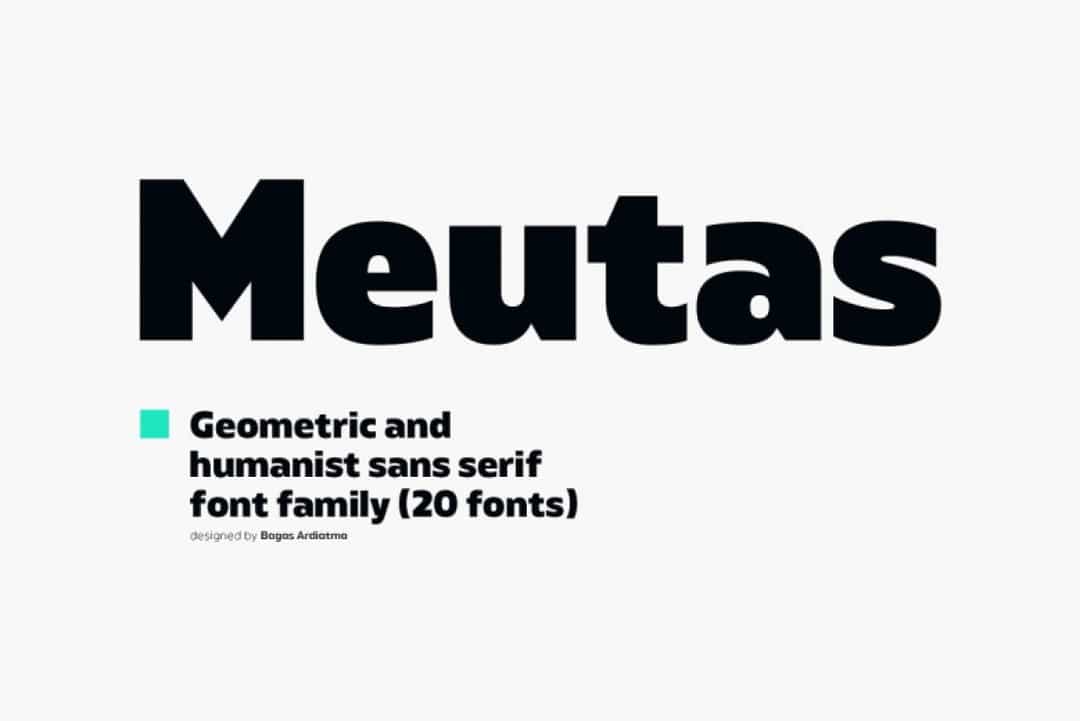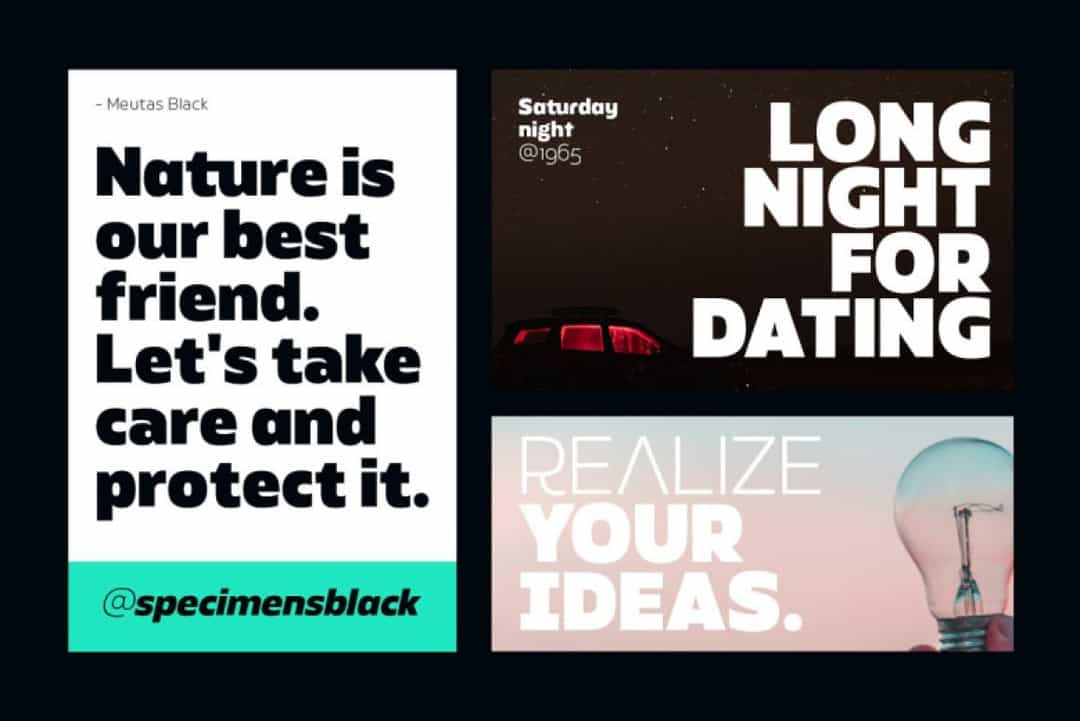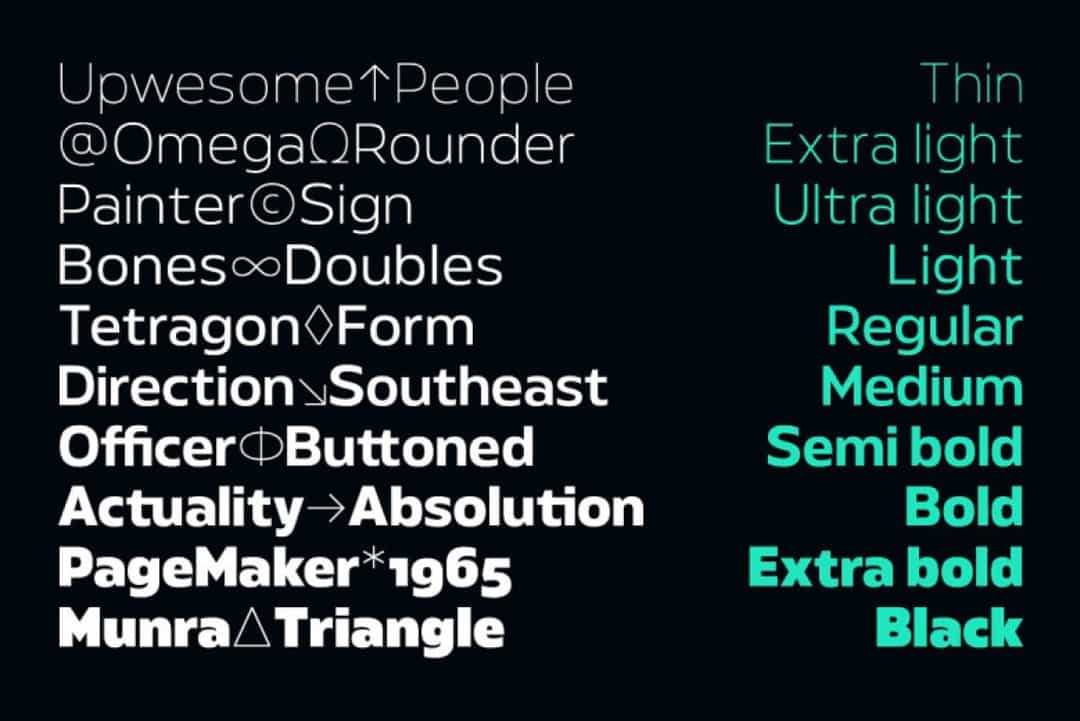
Meutas is an intriguing sans serif font family that blends humanist and geometric characteristics together into an exciting font family, which makes for more attractive text. Meutas was specifically designed to body text display, where its material maximizes thickness while simultaneously maintaining balance among each type – ideal for creative projects of all kinds!